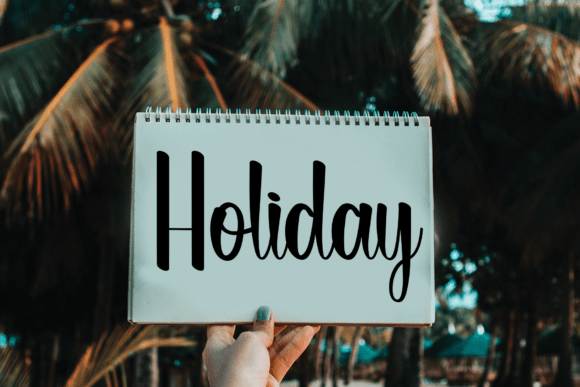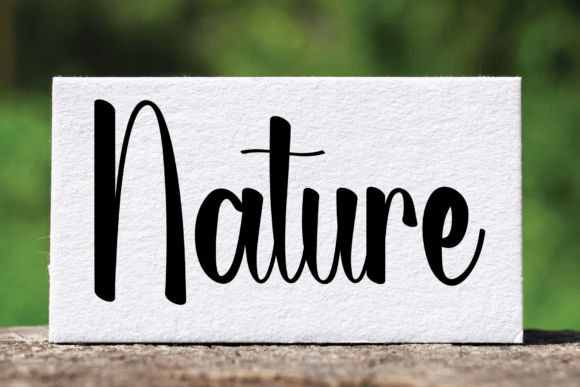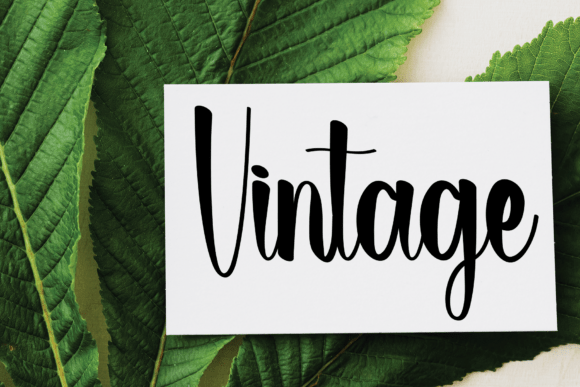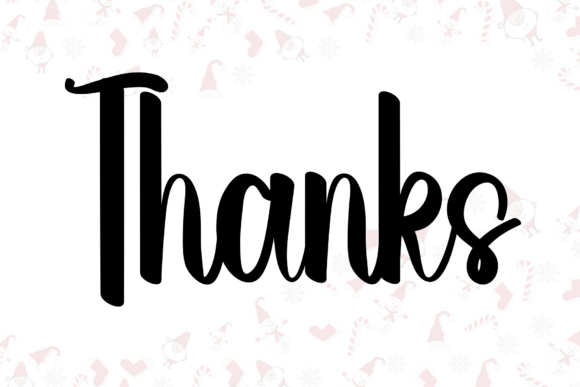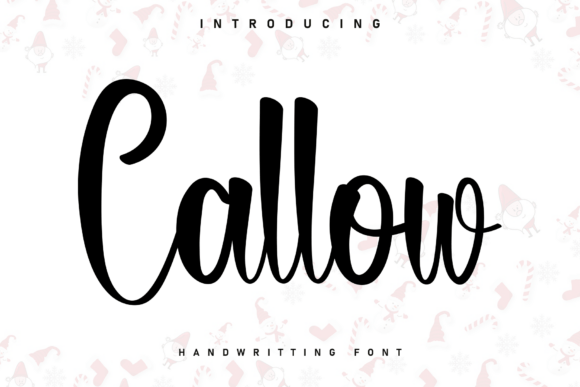
Introducing Callow Font: The Perfect Blend of Elegance and Casualness
Are you a designer or crafter looking for a font that exudes luxury, elegance, and a touch of casualness? Look no further than Callow Font. This beautiful handwritten font is designed to resemble marker-drawn text, giving it a relaxed and sporty feel that’s perfect for a wide range of design projects.
What is Callow Font?
Callow Font is a unique and stylish handwritten font that is designed to give your designs a luxurious and elegant look without appearing too formal. Its marker-drawn aesthetic gives it a casual and laid-back feel, making it perfect for branding, logos, wedding supplies, greeting cards, fashion lookbooks, marketing promotions, and more.
Key Features of Callow Font
- Handwritten with a marker feel: Callow Font has a distinct handwritten look that makes it stand out from other fonts. Its marker-drawn aesthetic gives it a relaxed and casual feel that’s perfect for designs that need a personal touch.
- Relaxed and sporty feel: Unlike traditional elegant fonts, Callow Font has a sporty and laid-back vibe that makes it perfect for designs that need a bit of edge.
- Luxurious and elegant: Despite its casual feel, Callow Font still exudes luxury and elegance, making it perfect for high-end designs and branding.
- Versatile: Callow Font can be used for a wide range of design projects, from wedding supplies and greeting cards to fashion lookbooks and marketing promotions.
Use Cases for Callow Font
Callow Font is an incredibly versatile font that can be used for a variety of design projects. Here are some use cases where Callow Font shines:
- Branding and logos: Callow Font is perfect for creating unique and memorable logos that stand out from the crowd.
- Wedding supplies: From wedding invitations to wedding stationery, Callow Font adds a touch of elegance and sophistication to any wedding design.
- Greeting cards: Callow Font is perfect for creating beautiful and heartfelt greeting cards for special occasions.
- Fashion lookbooks: Callow Font adds a touch of luxury and elegance to fashion lookbooks, making it perfect for high-end fashion brands.
- Marketing promotions: Callow Font can be used to create eye-catching marketing materials, such as brochures, flyers, and posters.
Tips for Using Callow Font
Here are some tips for getting the most out of Callow Font:
- Pair it with other fonts: Callow Font pairs well with other fonts, such as sans-serif fonts, to create a unique and visually appealing design.
- Experiment with colors: Callow Font looks great in a variety of colors, from bold and bright to pastel and soft.
- Use it for headlines and titles: Callow Font is perfect for headlines and titles, where its elegant and luxurious feel can shine.
Callow Font is a unique and stylish handwritten font that is perfect for designers and crafters looking for a luxurious and elegant font with a casual feel. Its versatility and range of use cases make it a valuable addition to any designer’s font library. Whether you’re creating branding materials, wedding supplies, or marketing promotions, Callow Font is sure to elevate your designs to the next level.